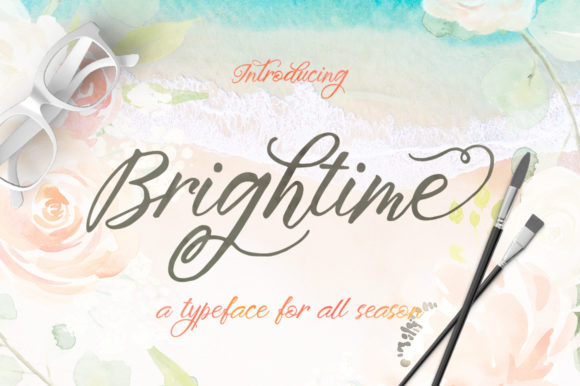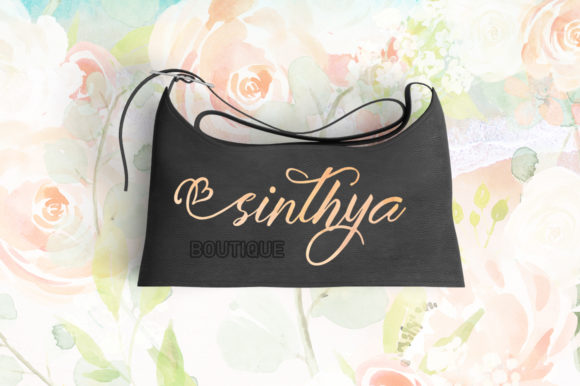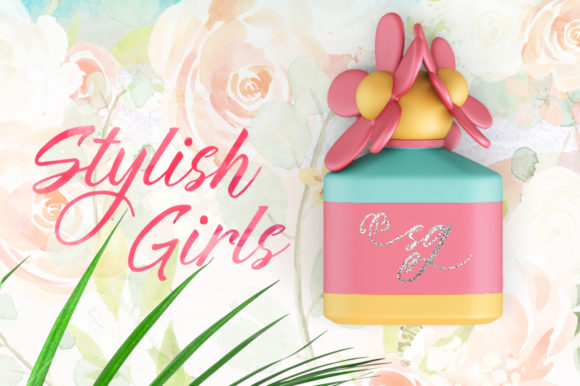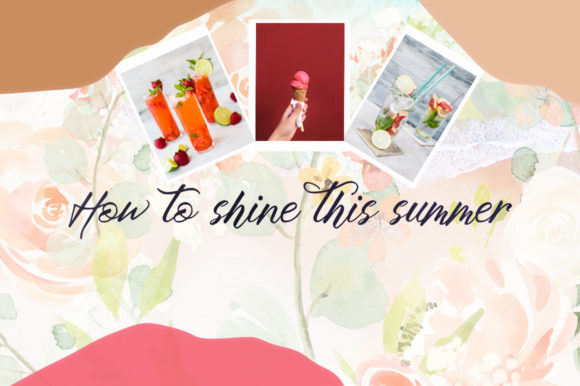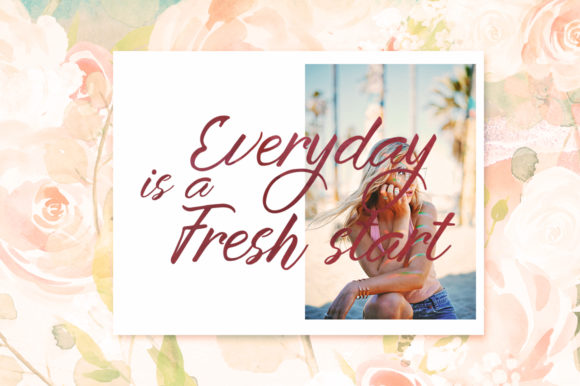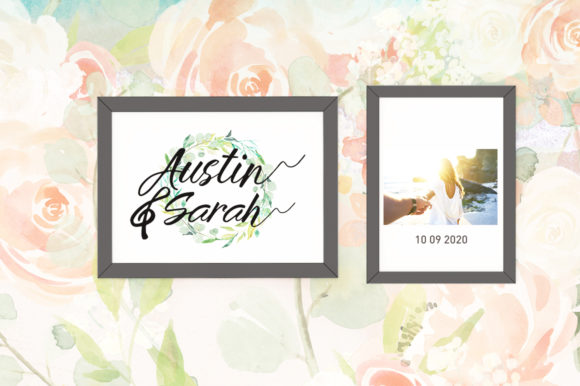
HomeScript FontsBrightime Font Script Fonts Brightime Font FacebookXPinterestWhatsApp Brightime Font Poster 2 Brightime Font Poster 3 Brightime Font Poster 4 Brightime Font Poster 5 Brightime Font Poster 6 About Brightime Font Brightime combines pure authenticity with great legibility. It’s an extraordinary font, perfect for all seasons! DOWNLOAD ON CREATIVE FABRICAThis font is sold and delivered by Creative Fabrica. Font Canyon may earn a commission if you buy through this link. People also explored Capappa Font Wood Shelf | Beer Mockup Cinderella Font Golden Bloom Font Fallery Script Font Tropical Country Font Lionel Text Diesel Polina Denise Beauty Font 320 0 TagsBrightime Font Previous articleGreat Authorized FontNext articleArtless Font LEAVE A REPLY Cancel reply Comment: Please enter your comment! Name:* Please enter your name here Email:* You have entered an incorrect email address! Please enter your email address here Website: Save my name, email, and website in this browser for the next time I comment. Personal Use Free Orchid Personal Use Free Read more about this font Ardilla Font Personal Use Free Read more about this font Styledeep Personal Use Free Read more about this font Rolling Door Personal Use Free Read more about this font BLOG Free vs Paid Fonts: Why Investing in Premium Fonts Is Worth It Free vs Paid Fonts: Why Premium Fonts Are Worth It in 2025 The debate of free vs paid fonts continues in the design world. While... Transform Your Website: Elevate Your Typography with 7 Best Web Font Generators The 10 Best Handwriting Fonts to Add Personality to Your Designs Where to Buy American Fonts Online in 2024